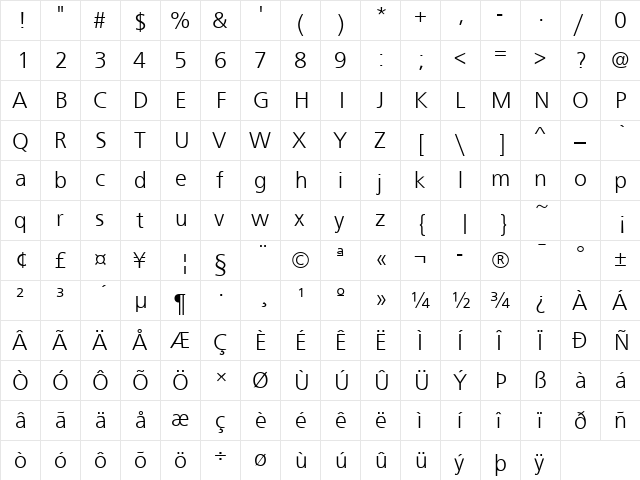
FrontPageLH Regular
Design Context for FrontPageLH Typeface
FrontPageLH offers clean, dependable letterforms without strong stylistic allegiance, making it a practical choice for designers who need flexibility.
Pro Tip: Use FrontPageLH in both headline and body roles to test its range before committing to a single application.